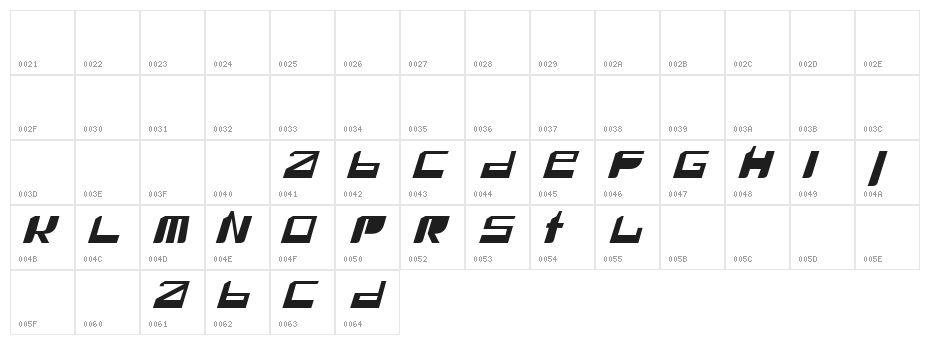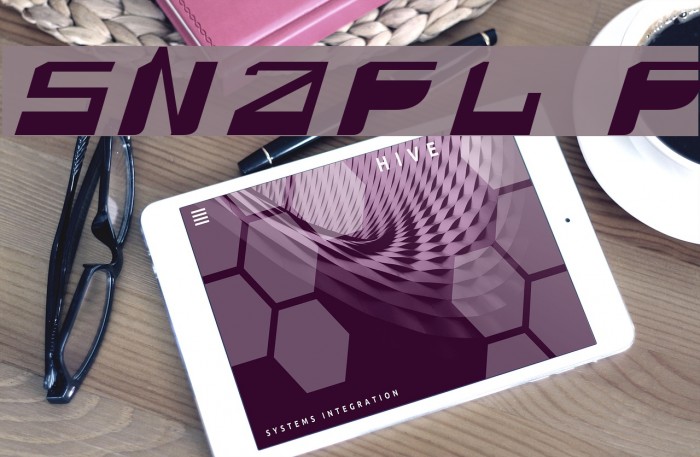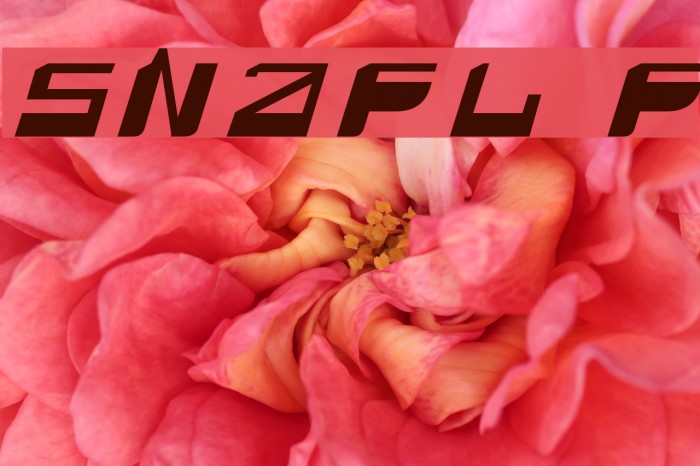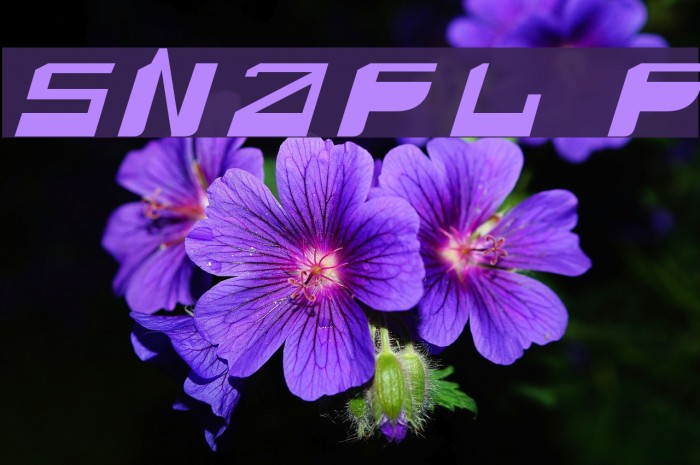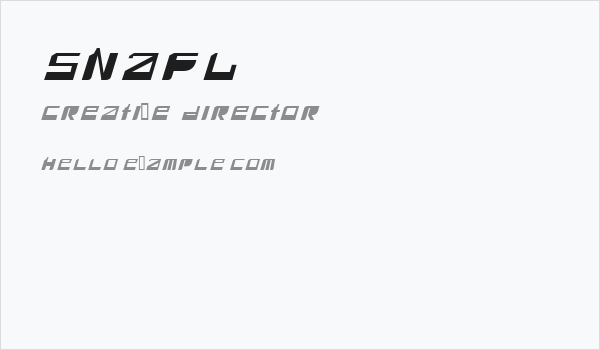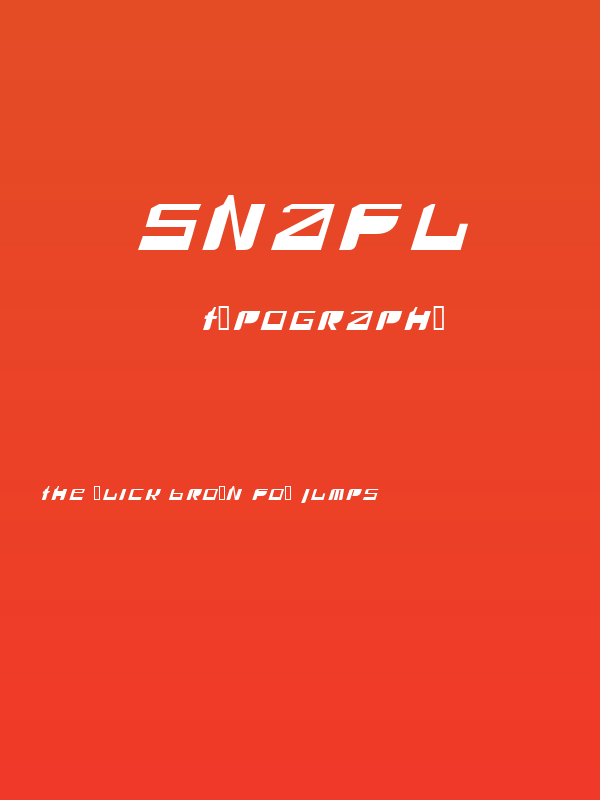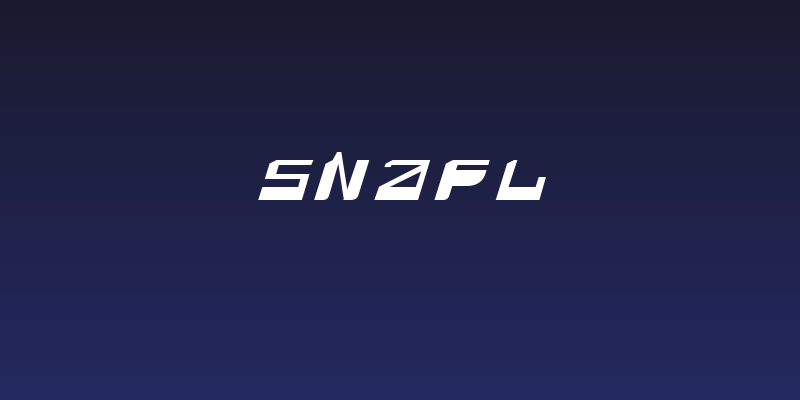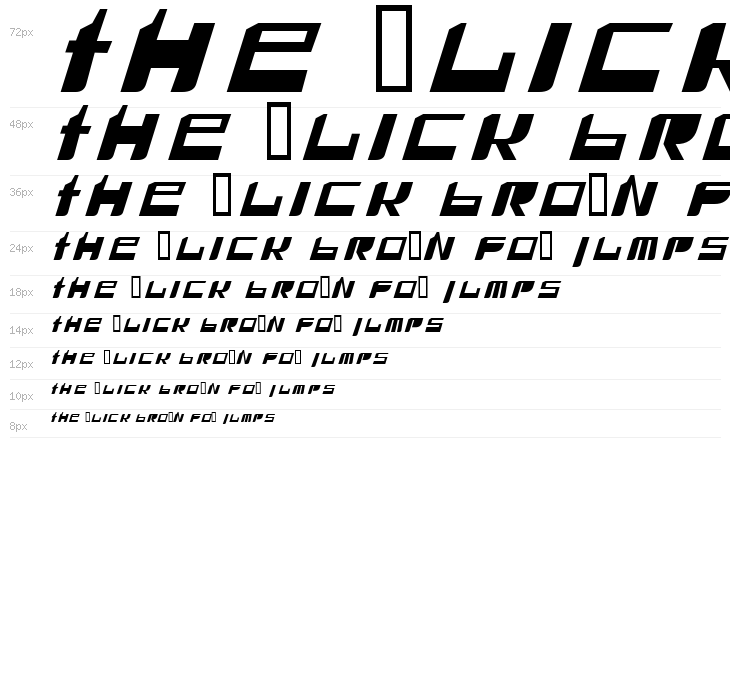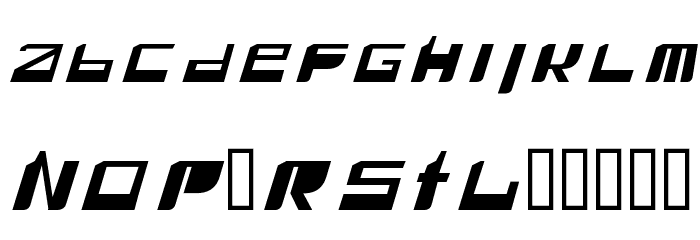
SNAFU Font
SNAFU Description
This font features a bold, angular design with a futuristic and dynamic appearance. The characters are sharply cut with a forward-leaning slant, giving a sense of motion and speed. The uppercase letters are particularly striking, with some characters incorporating unique geometric shapes that add to the font's distinctive style. The lowercase letters maintain the angular theme, ensuring consistency throughout. The numbers and special characters are designed to match the overall aesthetic, making this font suitable for projects that require a modern and edgy look.